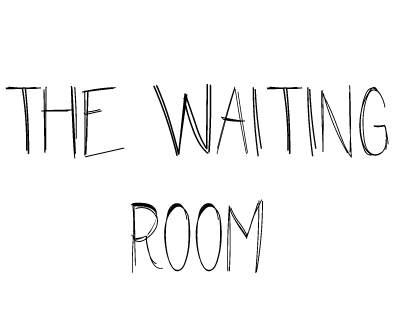
Let Us Pray 2 is a creepy and frightening font that is perfect for creating eerie and suspenseful designs. This font features jagged and irregular letterforms with a scratched texture, giving it a disturbed and unsettling feel. The font is designed to look like it has been scratched onto a wall or surface, making it ideal for use in horror-themed projects such as movie posters, book covers, or Halloween graphics. The font's creepy and macabre style is sure to grab the attention of anyone who sees it, making it a great choice for designers looking to add a touch of terror to their work. Whether you're creating a horror movie poster or a spooky invitation, Let Us Pray 2 is the perfect font to add a touch of fear and violence to your design.
Lowercase: Same as uppercase, this is an all UPPERCASE font
Numbers: Yes
Symbols: Yes
Accents: Yes
Style: Horror, Scratched, Death Metal, Grindcore